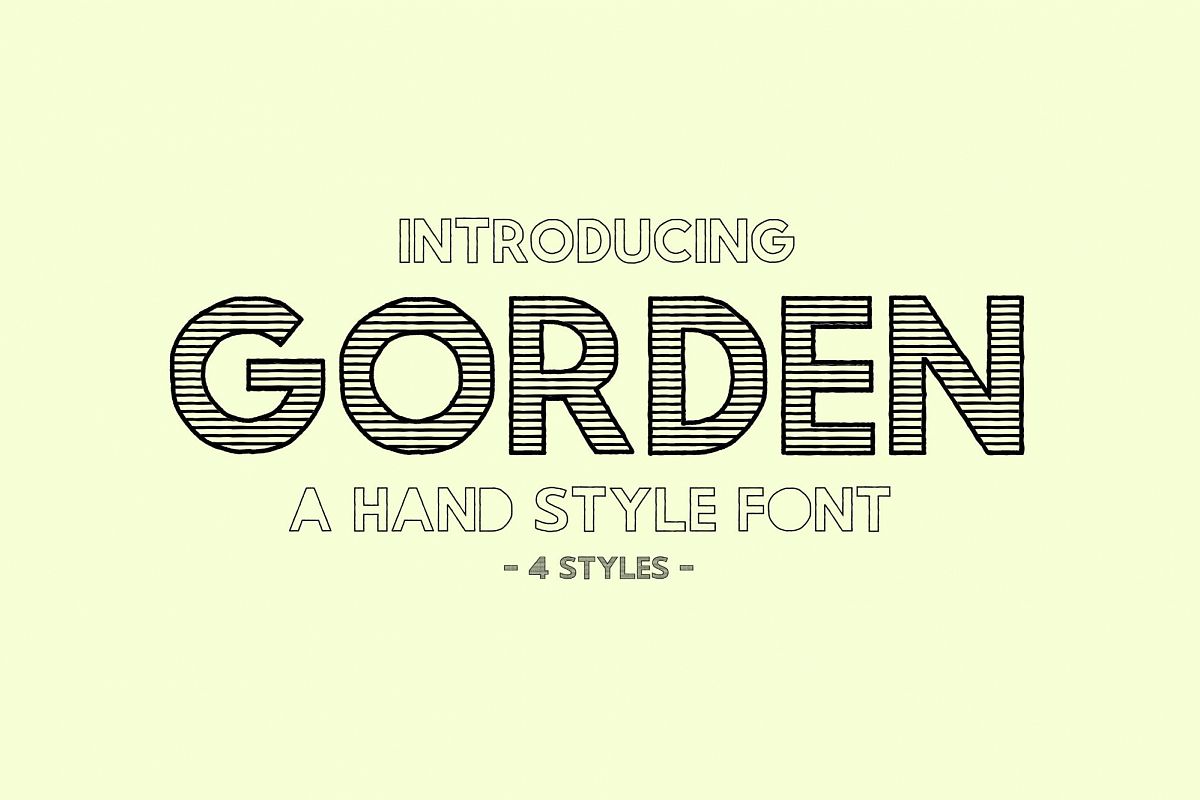
Gorden | A Hand Style FontIntroducing Gorden | A Hand Style Font - A handwritting and awesome character! With 4 different style, it's perfect for logos, name card, magazine layouts, invitations, headers, or even large-scale artwork.